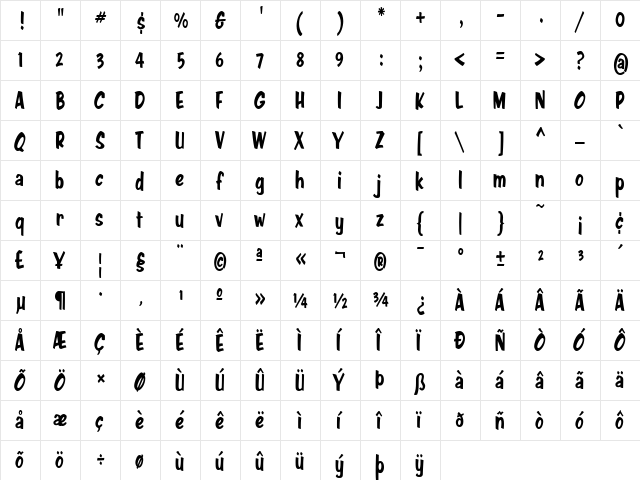
Java Jive Condensed Regular
| Foundry | TYPADELIC FONTS |
| Designer | Ronna Penner |
Design Context for Java Jive Condensed Typeface
Java Jive Condensed is a composed and adaptable typeface that performs quietly and consistently across a wide range of design contexts. The condensed width makes it efficient for tight spaces without sacrificing legibility.